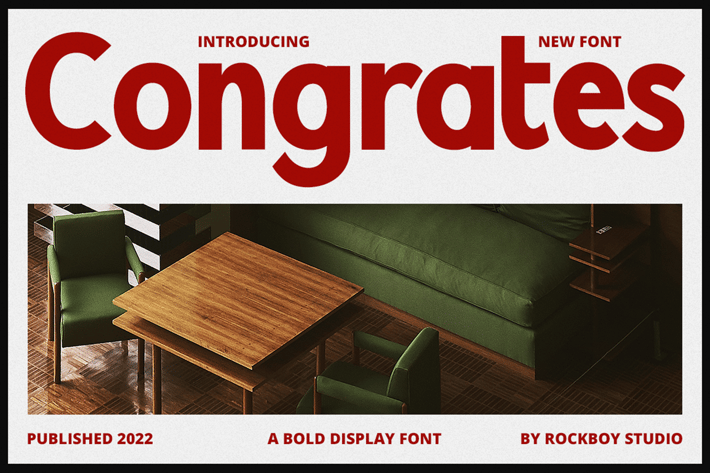
Congrates - Logo Font
RockboyStudio
Congrates is a beautiful and refined script font. It has a classy, elegant and modern look that can be used for logos, branding, invitations, stationery, wedding designs, social media posts, and much more!